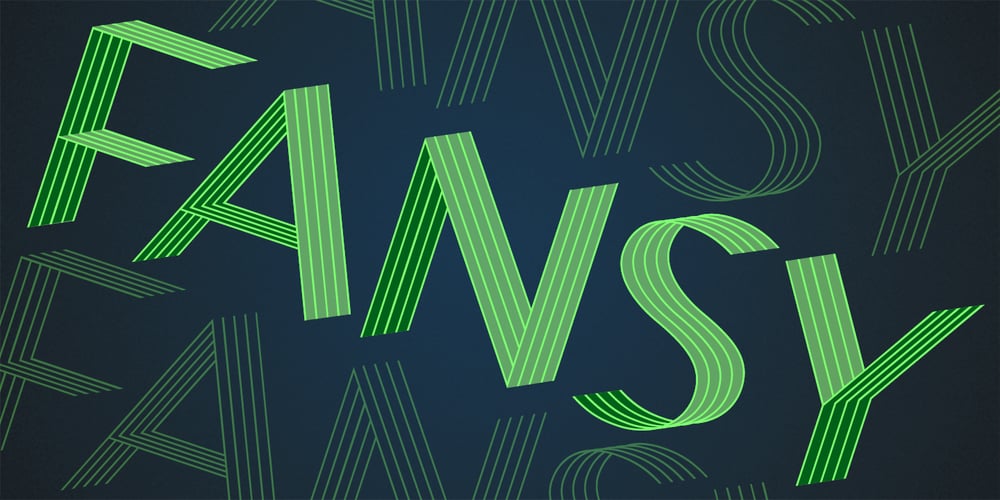
Fansy Font Family was designed by Jörg Schmitt and published by Jörg Schmitt. Fansy contains 3 styles and family package options. This font should be used with all three formats. It is recommended to use it in big font sizes due to the thin hairline of Fansy A. Have fun playing with the new modern and fancy display font designed by Jörg Schmitt.